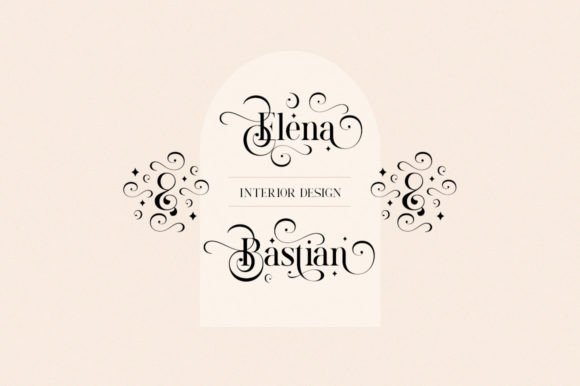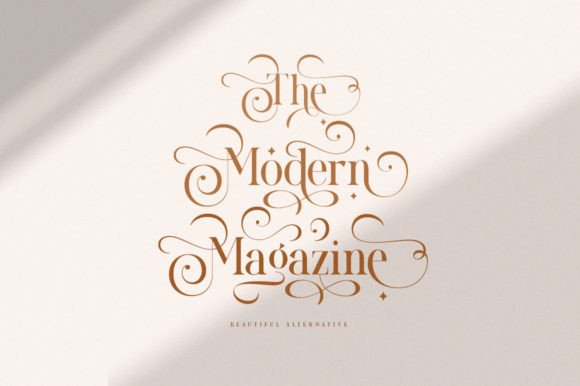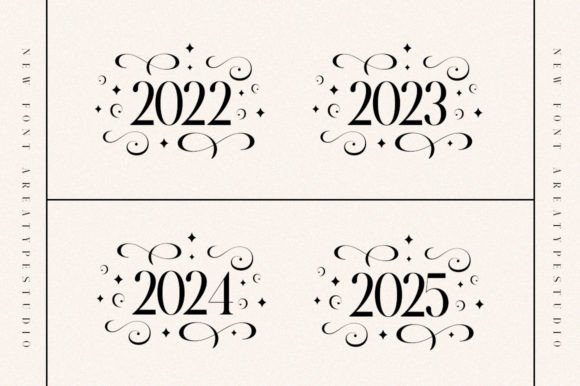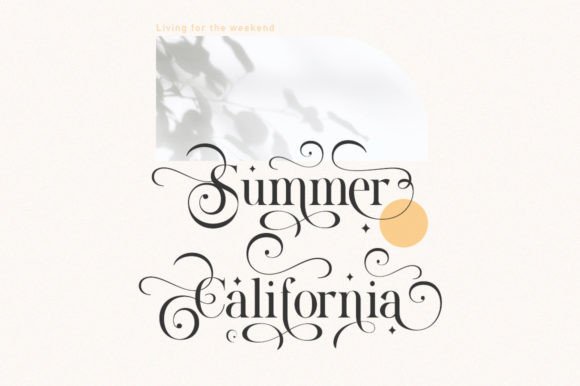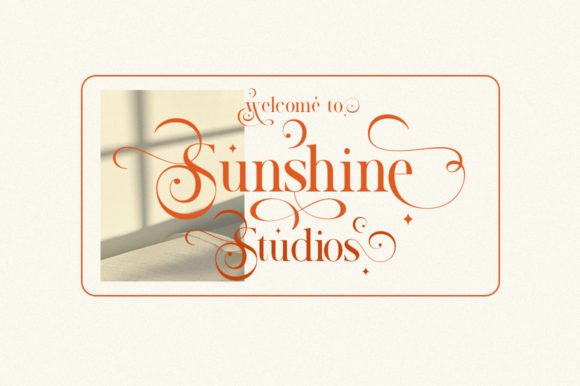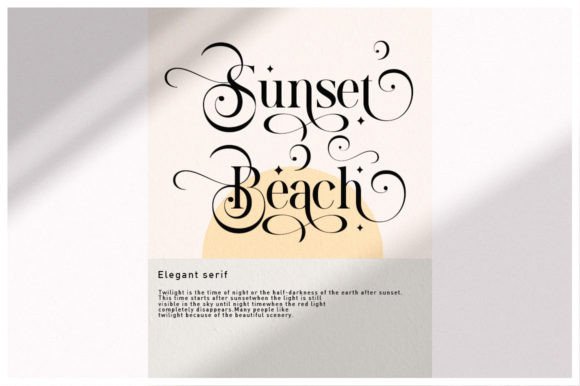
Introduction to Quicks Sweet Love Font Font
Fonts play a crucial role in design, and the Quicks Sweet Love Font font is a typeface that brings both character and versatility to any project. Whether you’re working on a branding project, a website, or a print design, the Quicks Sweet Love Font font offers a unique style that can elevate your work.
Quicks Sweet Love is a stylish serif font, described by an elegant touch, perfect for your favorite projects.
Fall in love with its incredibly distinct and timeless style and use it to create spectacular designs This font is PUA encoded which means you can access all the glyphs and ligatures with ease.
Key Features of Quicks Sweet Love Font Font
Why Choose Quicks Sweet Love Font Font?
The Quicks Sweet Love Font font is more than just a typeface – it’s a design tool that helps you communicate your message with style and clarity. Its unique character set and versatile design make it suitable for a wide range of applications, from elegant invitations to bold headlines.
With its carefully crafted letterforms and balanced proportions, the Quicks Sweet Love Font font ensures readability and visual appeal across all mediums.
What makes Quicks Sweet Love Font font special?
The Quicks Sweet Love Font font stands out with its unique design, exceptional readability, and versatility across various design applications.